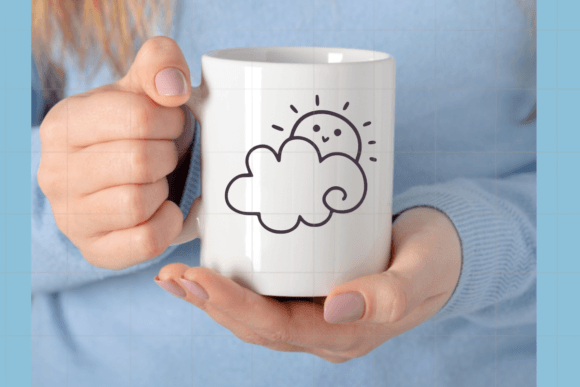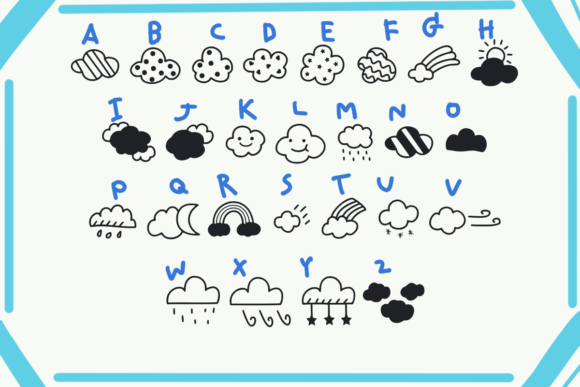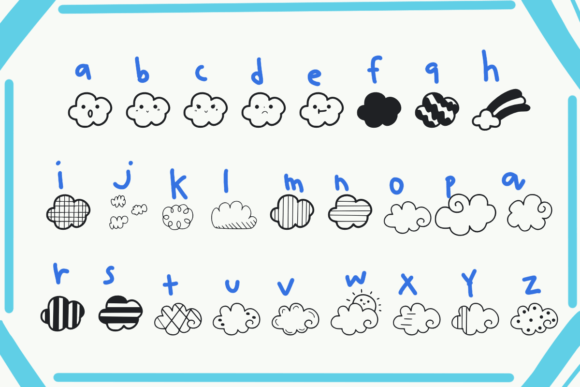
About Cloudy Font
Introducing “Cloudy,” a cute and useful hand-drawn dingbats font that will add a touch of whimsy and charm to your creative projects. Whether you’re planning, crafting, designing digitally, or creating greeting cards, Cloudy is the perfect addition to make your designs outstanding!
With Cloudy, you can bring a playful and delightful element to your plans and organizers. Use the cute cloud-shaped glyphs to mark important dates, create bullet points, or add decorative accents to your daily, weekly, or monthly layouts. The hand-drawn style adds a personal and artistic touch to your planning experience.
In crafting, Cloudy opens up a world of possibilities. Use the adorable cloud symbols as embellishments for scrapbooking, cardmaking, or other paper crafts. Create whimsical borders, frames, or decorative elements that will make your projects stand out. Cloudy adds a touch of sweetness and imagination to any craft endeavor.
When it comes to digital design, Cloudy brings a unique and charming aesthetic. Incorporate the cloud-shaped glyphs into your digital illustrations, social media graphics, or website designs. Create eye-catching icons, badges, or logos that capture attention and convey a sense of creativity and playfulness.
Presentations become more engaging with Cloudy. Use the dingbats font to add visual interest to your slides, making key points or bullet lists more visually appealing. Cloudy’s hand-drawn style breaks the monotony of traditional fonts and adds a touch of personality to your presentations.
Greeting cards become even more special with Cloudy. Use the cute cloud symbols to create custom-made cards for birthdays, baby showers, thank you notes, and more. Cloudy’s hand-drawn glyphs bring a sense of warmth and cheerfulness, making your cards heartfelt and memorable.
With Cloudy, you have the power to infuse your designs with cuteness and whimsy. Let this hand-drawn dingbats font inspire your creativity and add a touch of charm to your plans, crafts, digital designs, presentations, greeting cards, and more. Get ready to make your designs outstanding with Cloudy!